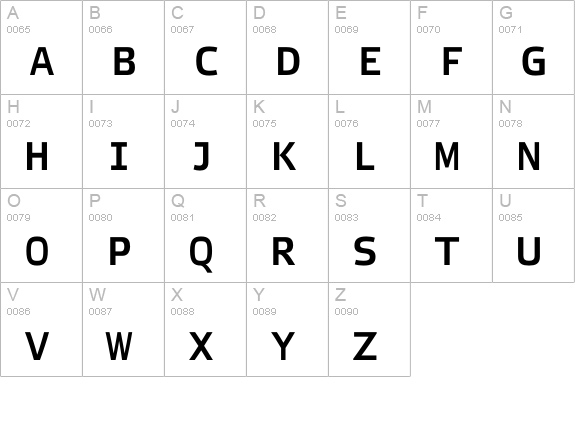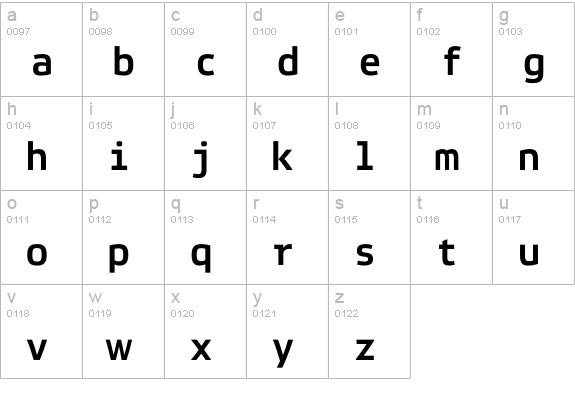
Elektra Mono Pro Bold Font Details
Elektra Mono Pro Bold is a strong, high-contrast variant in the Elektra typeface family \xE2\x80\x94 well suited to headlines, attention-grabbing titles, and strong calls-to-action.
Elektra Mono Pro Bold font is a stunning typeface that exudes modernity and sophistication. With its bold and clean lines, this font is perfect for making a bold statement in any design project. The sharp edges and geometric shapes give Elektra Mono Pro Bold a sleek and professional look that is sure to grab attention. What's even better is that Elektra Mono Pro Bold font is available for free download at FontsMarket.com. This means you can easily access and use this impressive font without any cost. Whether you're working on a branding project, website design, or any other creative endeavor, Elektra Mono Pro Bold font is a fantastic choice to add a touch of elegance and style. Download it now and elevate your designs with this exceptional typeface.